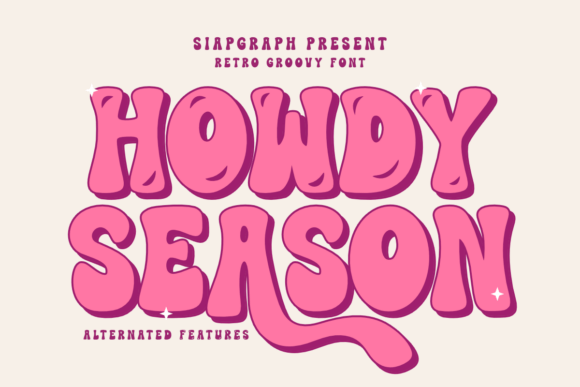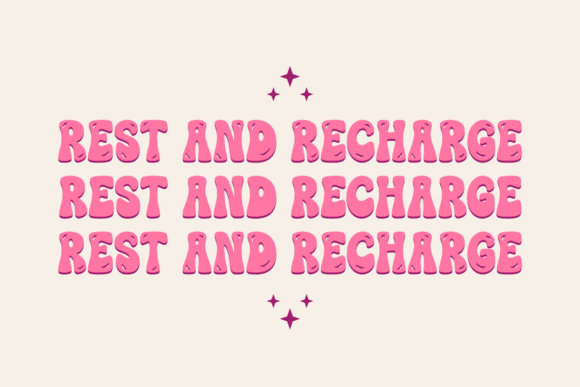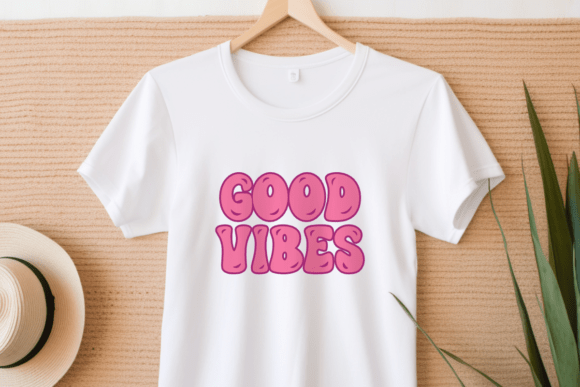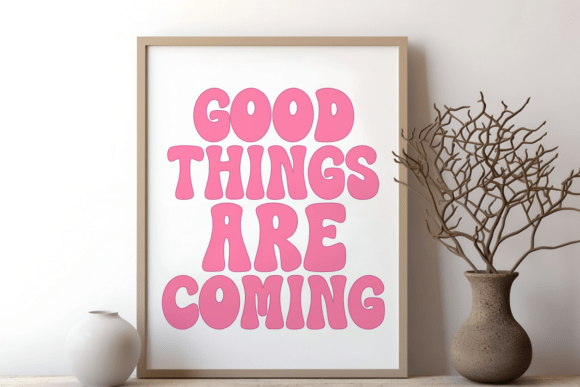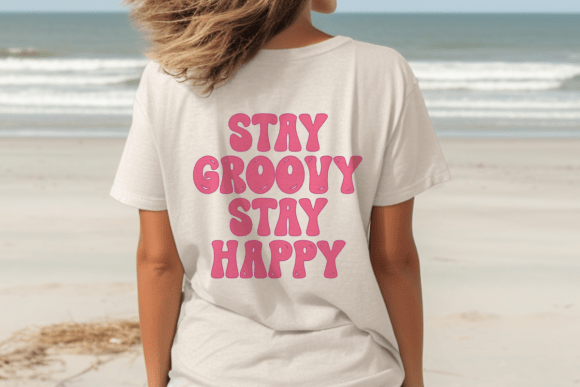
Howdy Season Font
Introducing Howdy Season, a captivating retro display font impeccably tailored with alternate features. Crafted with an innate vintage vibe, it’s the perfect choice to infuse a playful, timeless touch into any design work. From adorning your favorite t-shirts, livening up mugs and tote bags, to embellishing greeting cards with a touch of nostalgia, Howdy Season’s versatility shines. It’s ideal for personalizing pillows, starring in sticker designs, and enhancing laser cut crafts. Plus, it’s a superb choice to add a whimsical spin to scrapbooking projects or liven up quotes with its unique retro charm. Turn the clock back with Howdy Season, and give your designs a memorable, fun-filled retro flavor.